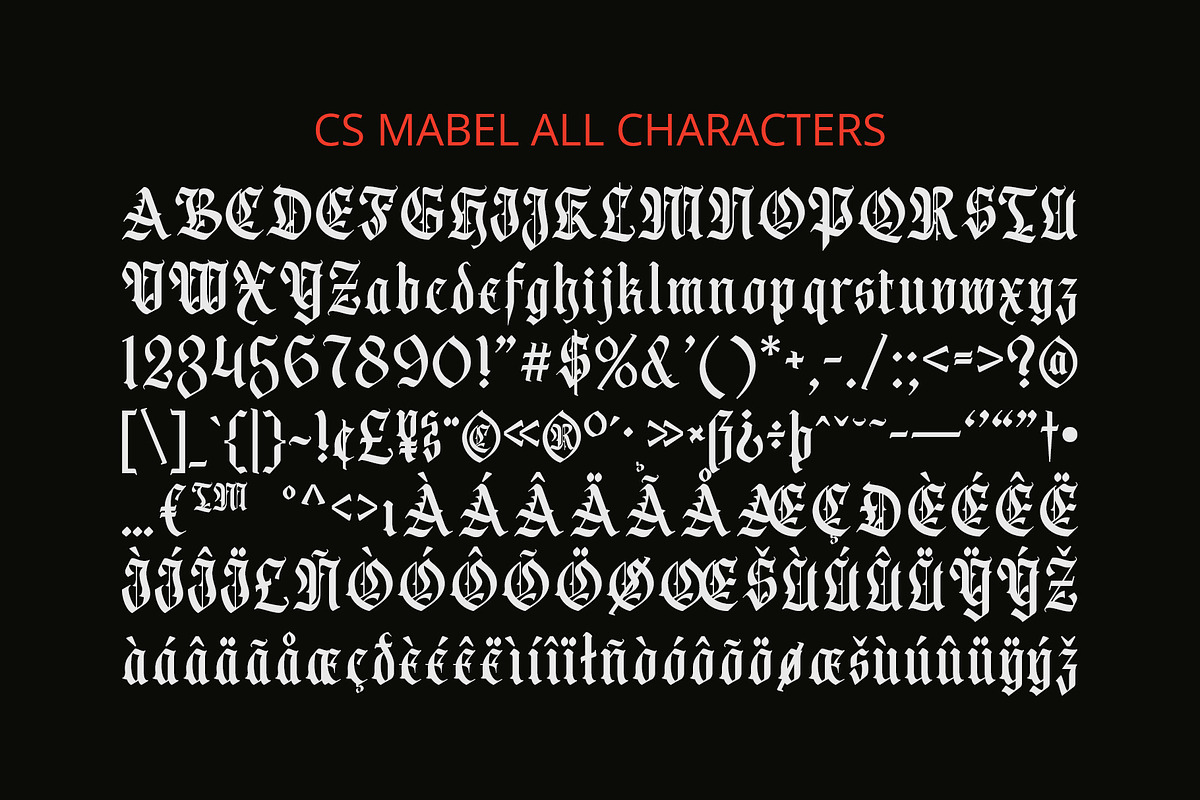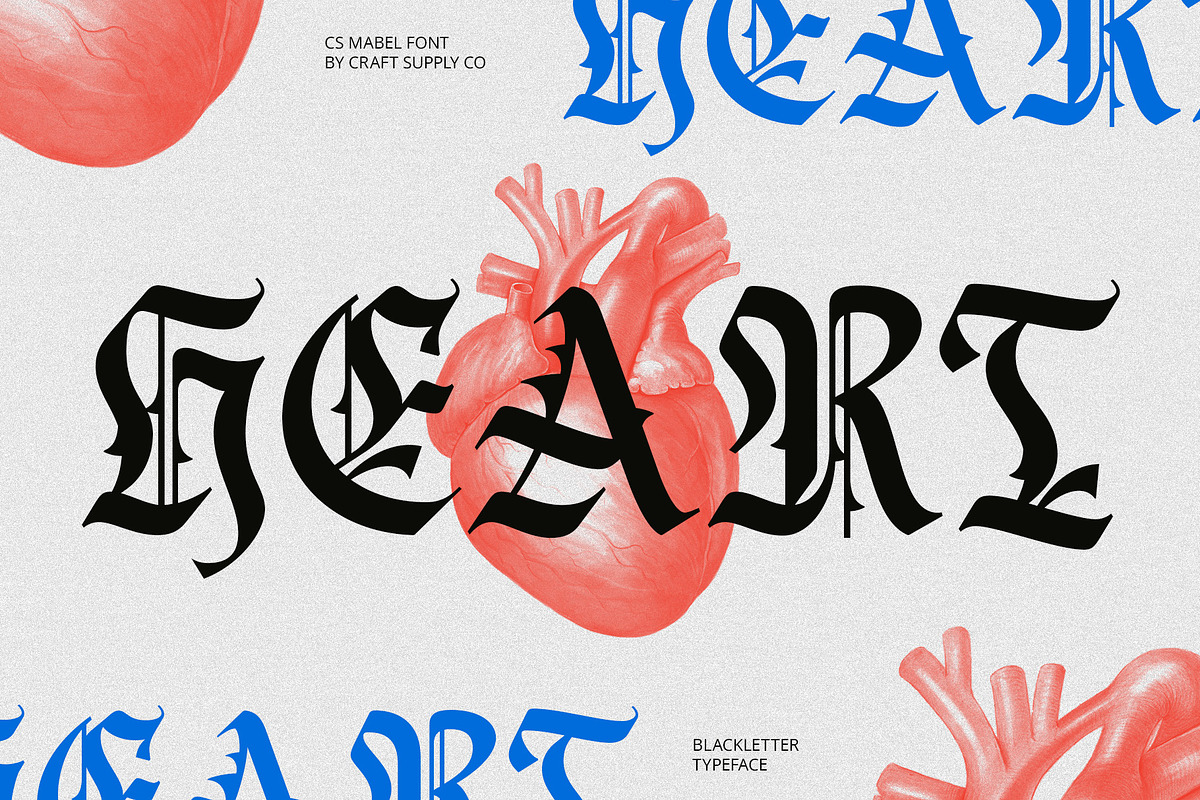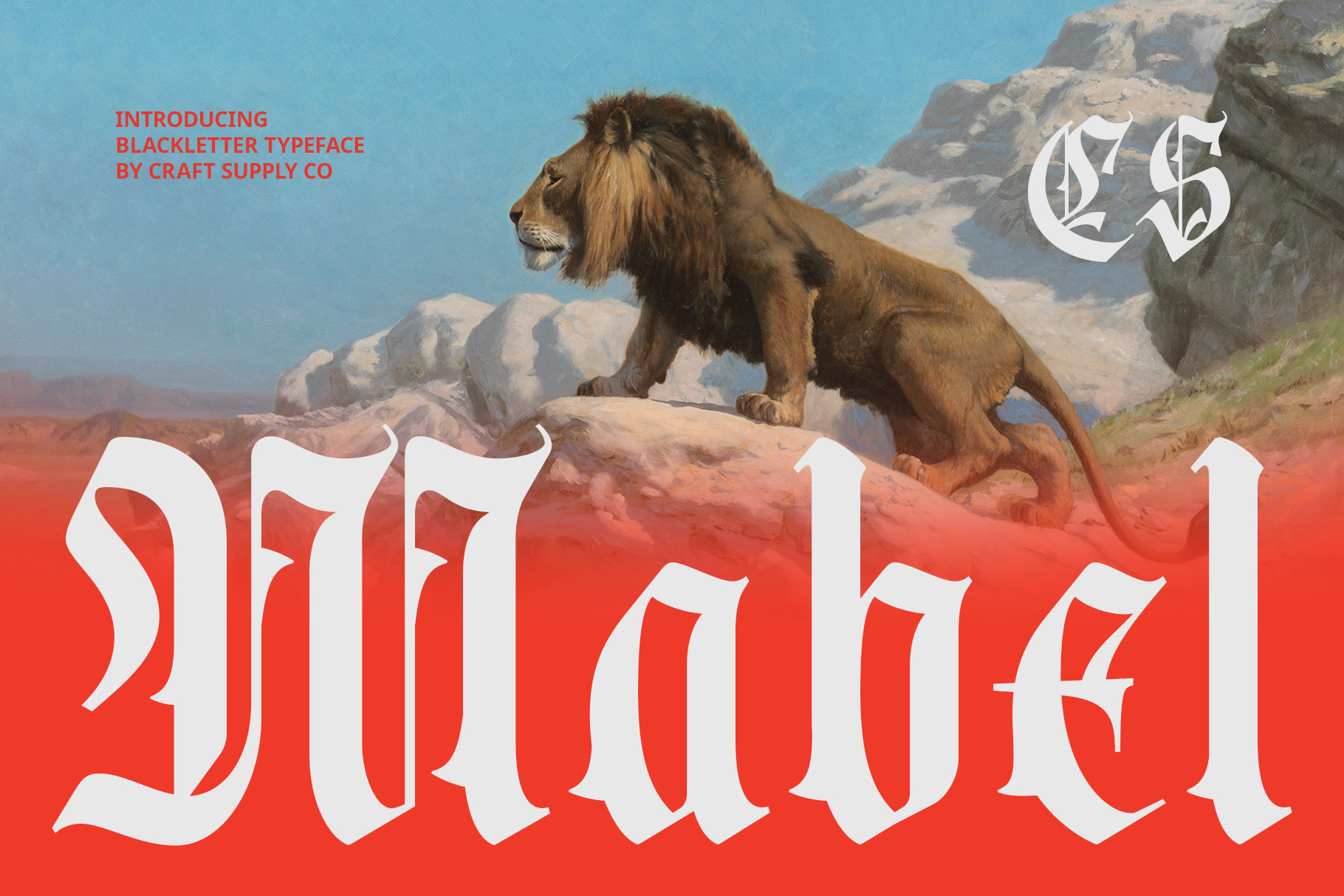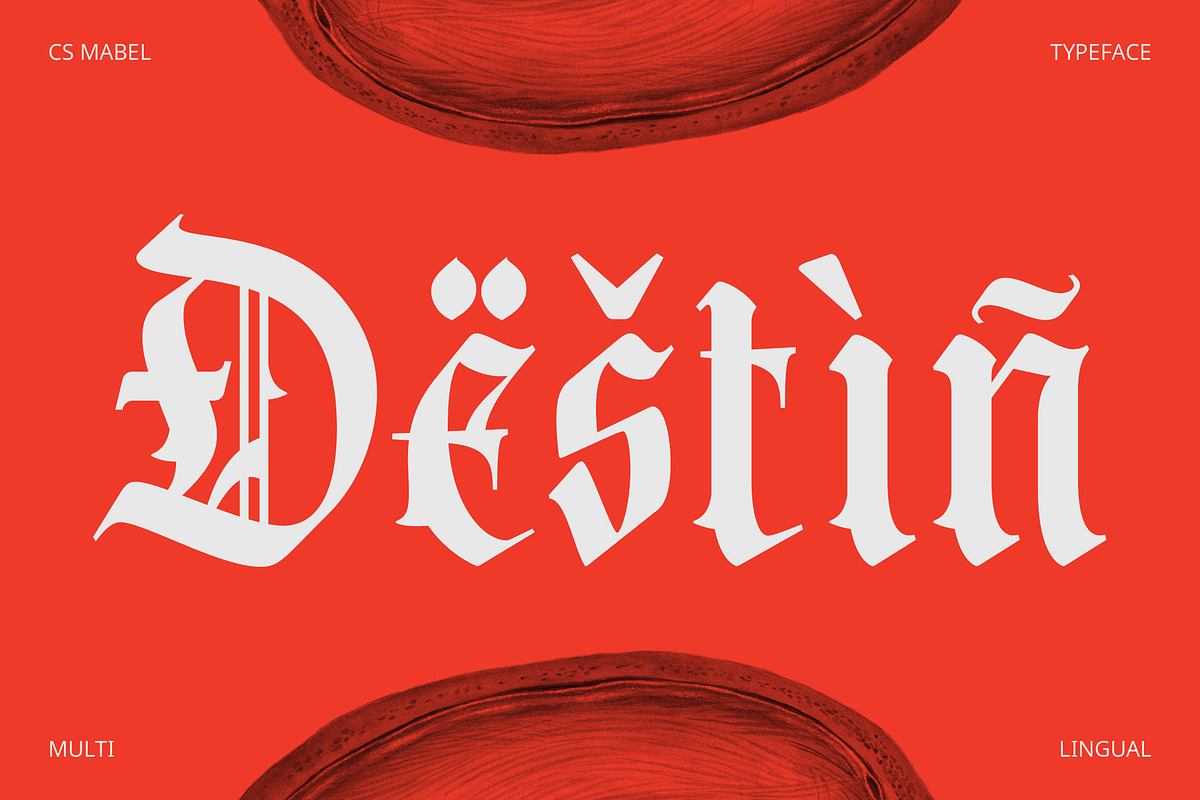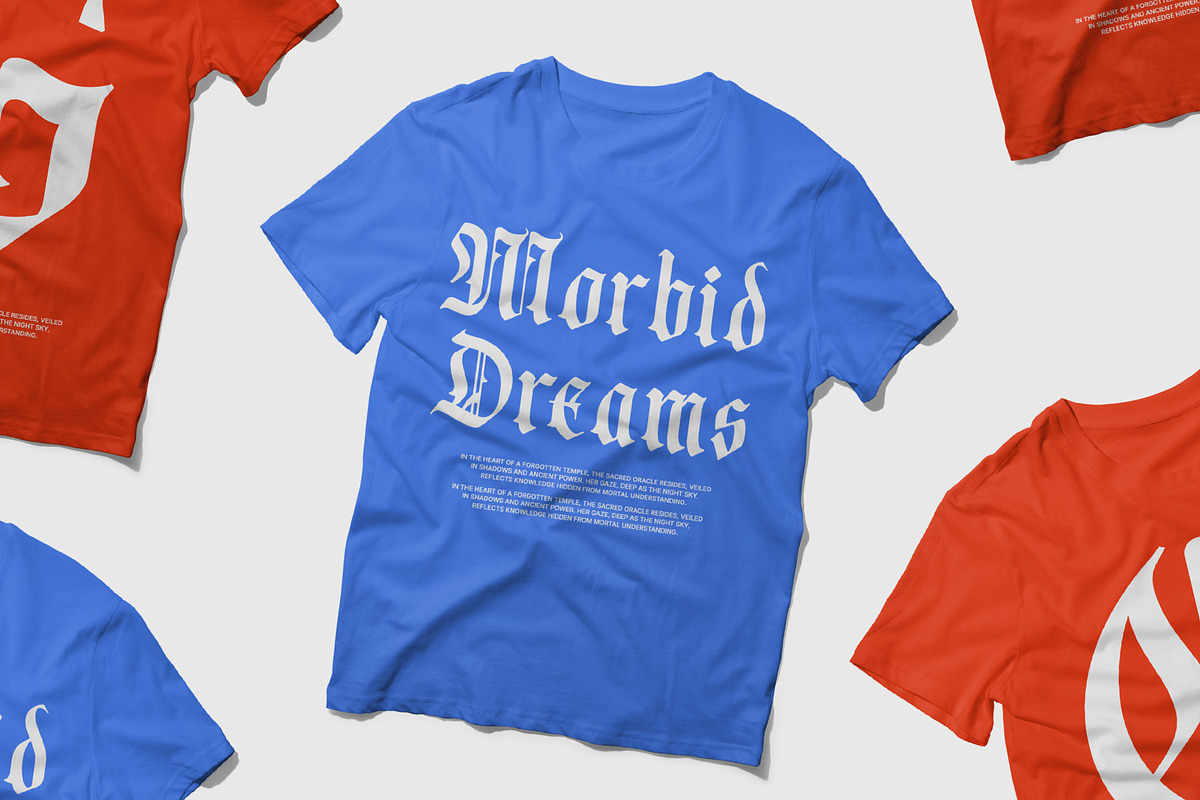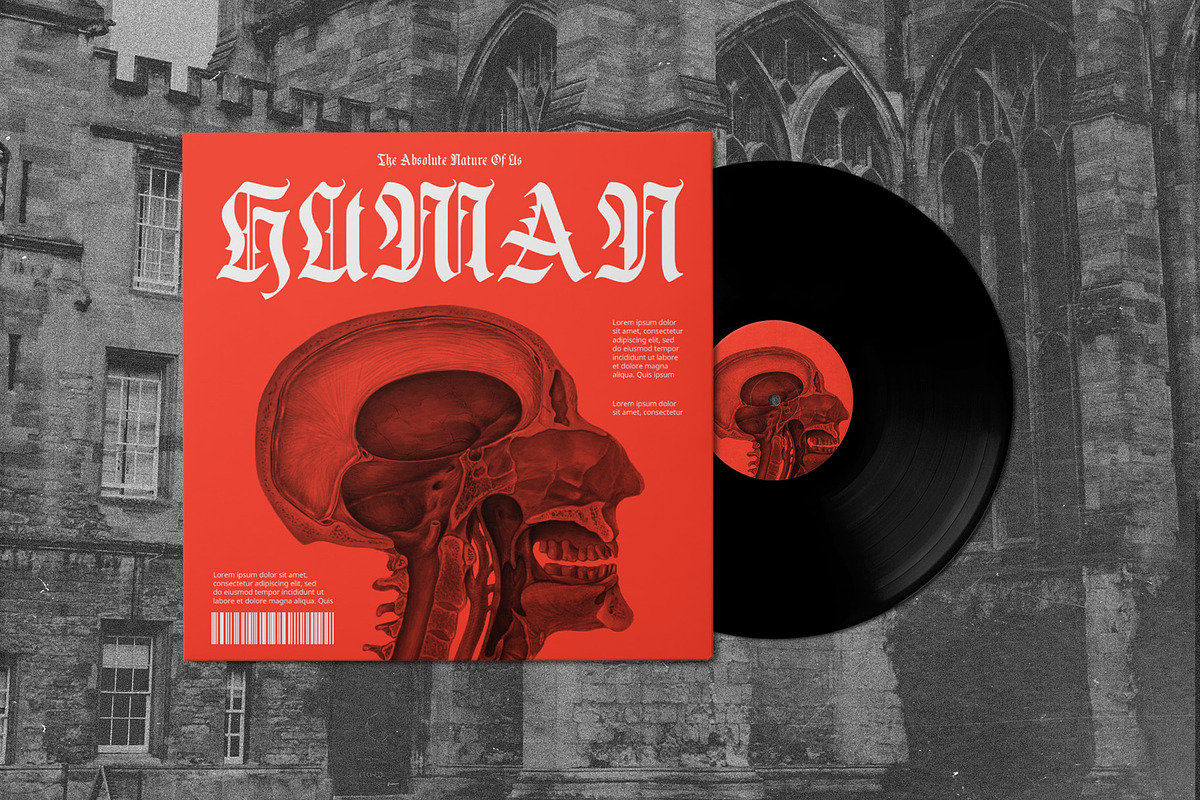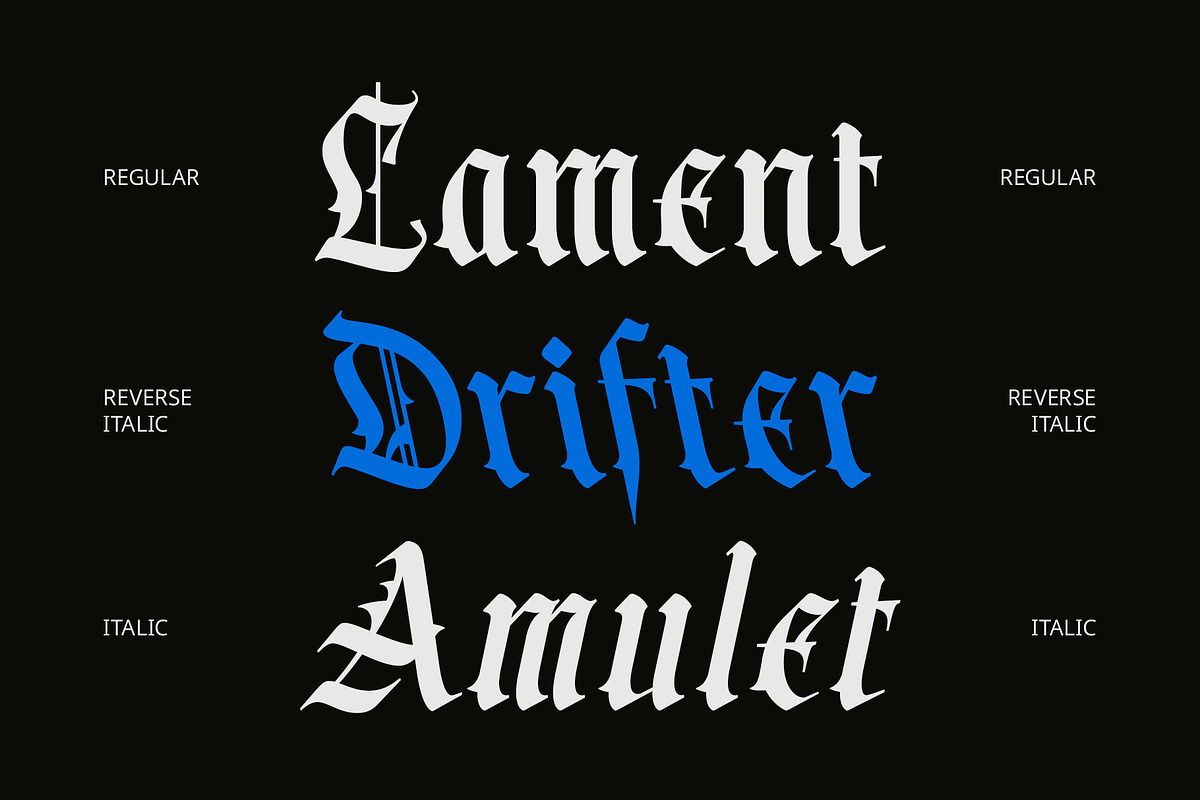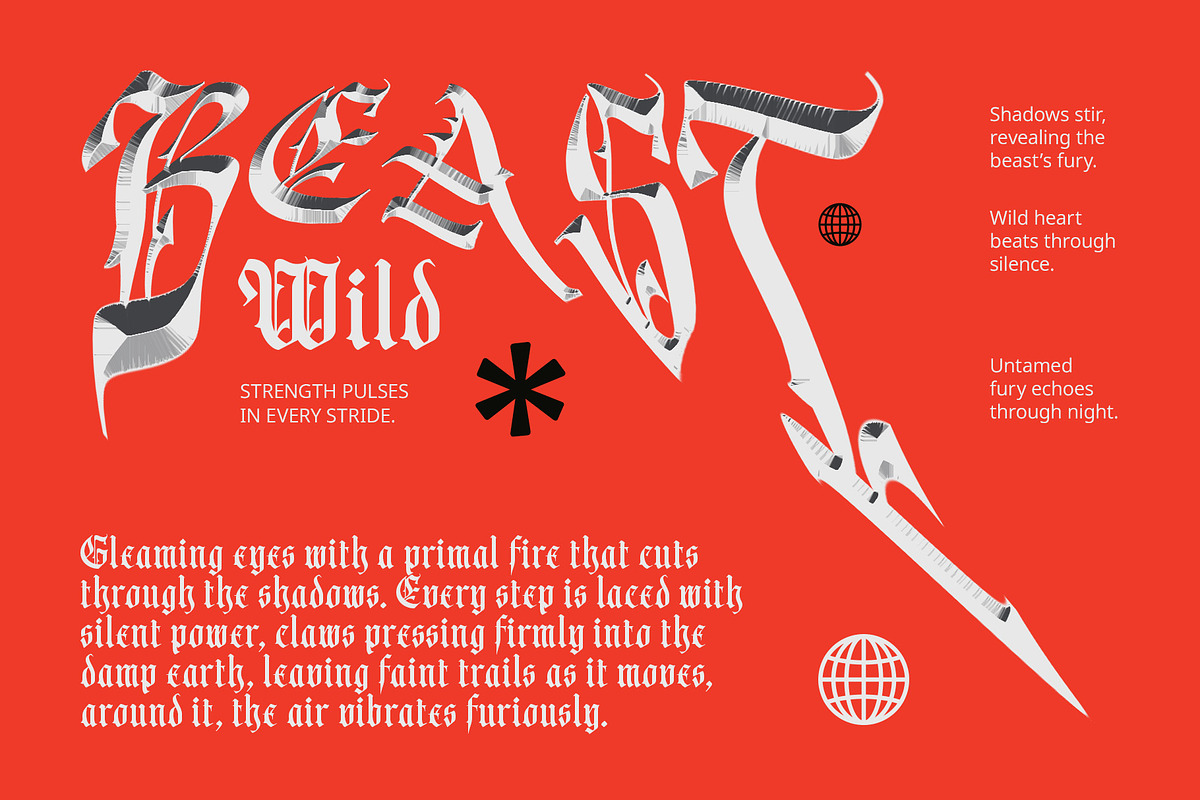
CS Mabel – Blackletter Font
CS Mabel – Classic Blackletter Font
Timeless Elegance Inspired by History CS Mabel is a classic blackletter display font that draws inspiration from the intricate designs of ancient manuscripts. This font stands out with its striking characteristics, featuring sharp lines, pointed angles, and elaborate decorative details. Each letter is meticulously crafted to convey a weighty and bold impression, capturing the essence of traditional typography with a modern touch.
Rich Historical Ambiance Evoking the grandeur of the medieval and Renaissance eras, CS Mabel is ideal for projects that require a formal and historical ambiance. Its distinctive style resonates with themes of antiquity and artistry, making it a perfect choice for designs that seek to highlight classic values and cultural heritage. The font’s dramatic presence can transform any text into a focal point, infusing your projects with an air of sophistication.
Versatile for Formal Applications This blackletter font excels in a variety of applications where a traditional feel is paramount. Whether you’re designing formal invitations, historical posters, or branding materials that aim to evoke a sense of elegance, CS Mabel adds a unique touch to every design piece. Its intricate details and bold structure make it well-suited for artistic projects that demand attention and respect.
- CS Mabel Regular
- CS Mabel Italic
- CS Mabel Reverse Italic